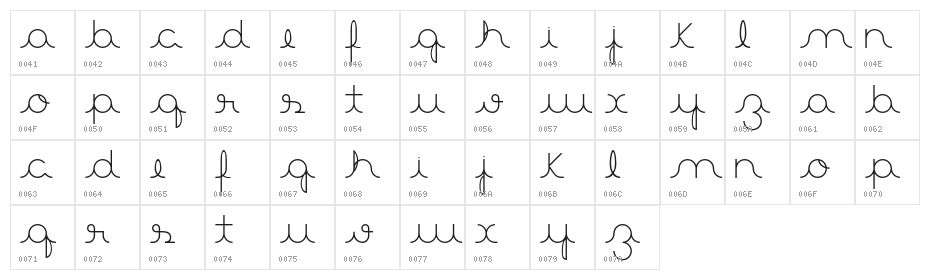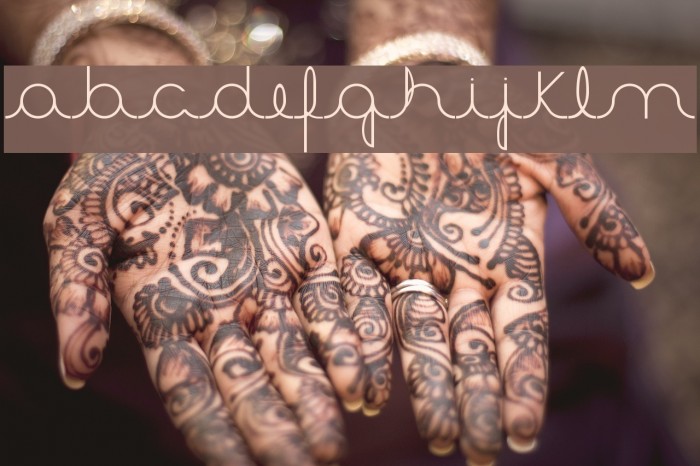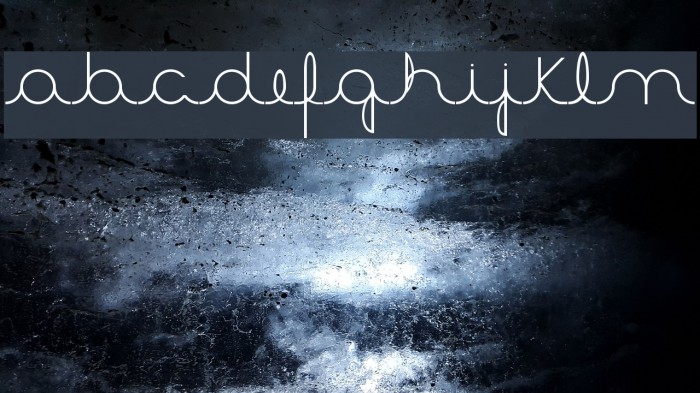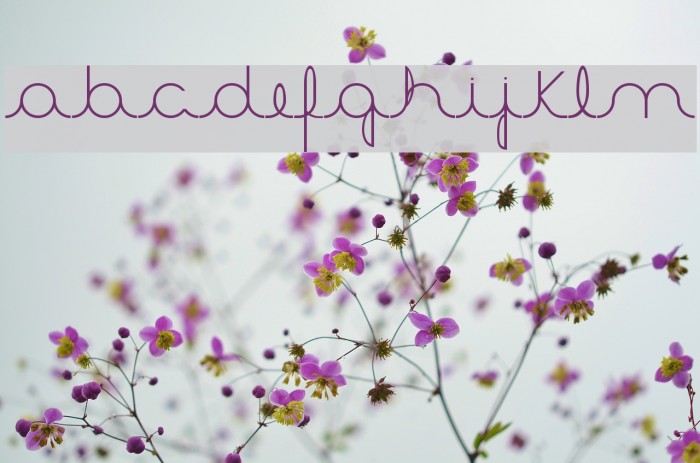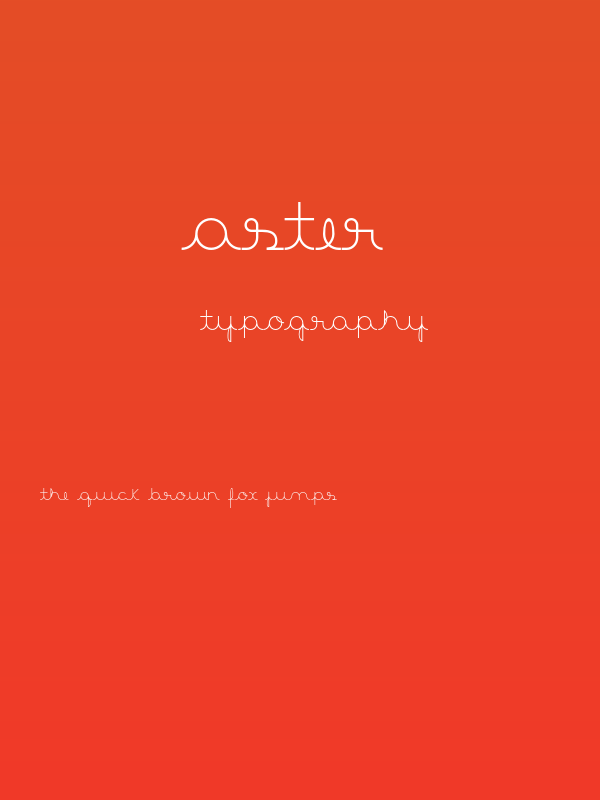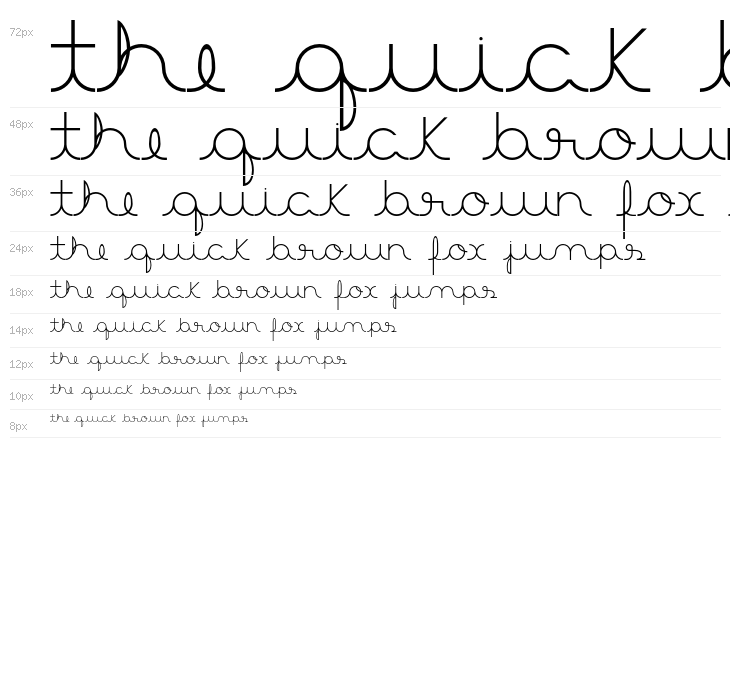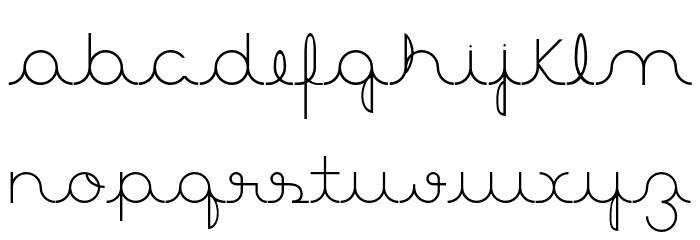
Aster3 Font
Aster3 Description
This font features a unique and playful design with a continuous, flowing script style. Each letter is connected, creating a seamless and elegant appearance. The strokes are consistent in width, giving it a uniform look. The loops and curves are prominent, adding a whimsical touch to the overall design. This font is ideal for projects that require a personal and artistic flair, such as invitations, greeting cards, or creative branding. Its distinct style makes it stand out, while maintaining readability.
| Proposed Projects | Ideal for invitations, greeting cards, artistic branding, and creative projects. |